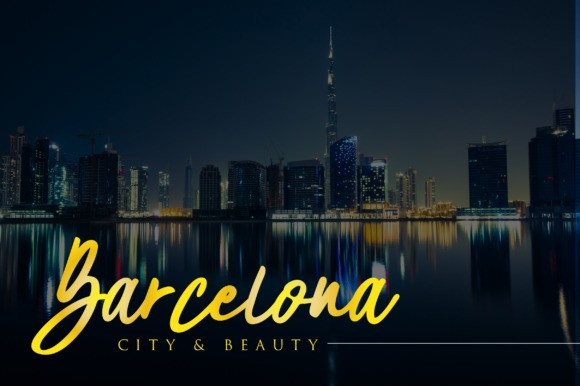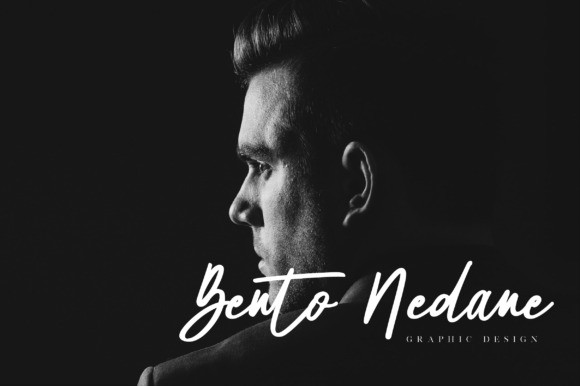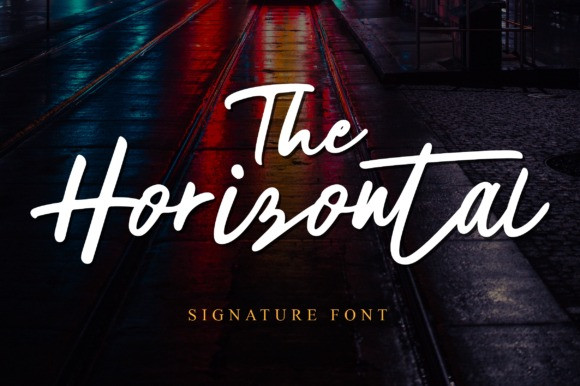
Hamtores Handwritten Font
Hamtores Handwritten Font is a lovely and timeless handwritten font. It is the best choice for creating eye-catching logos, branding, and quotes. Every letter has a unique and beautiful touch, which will make your design come alive!